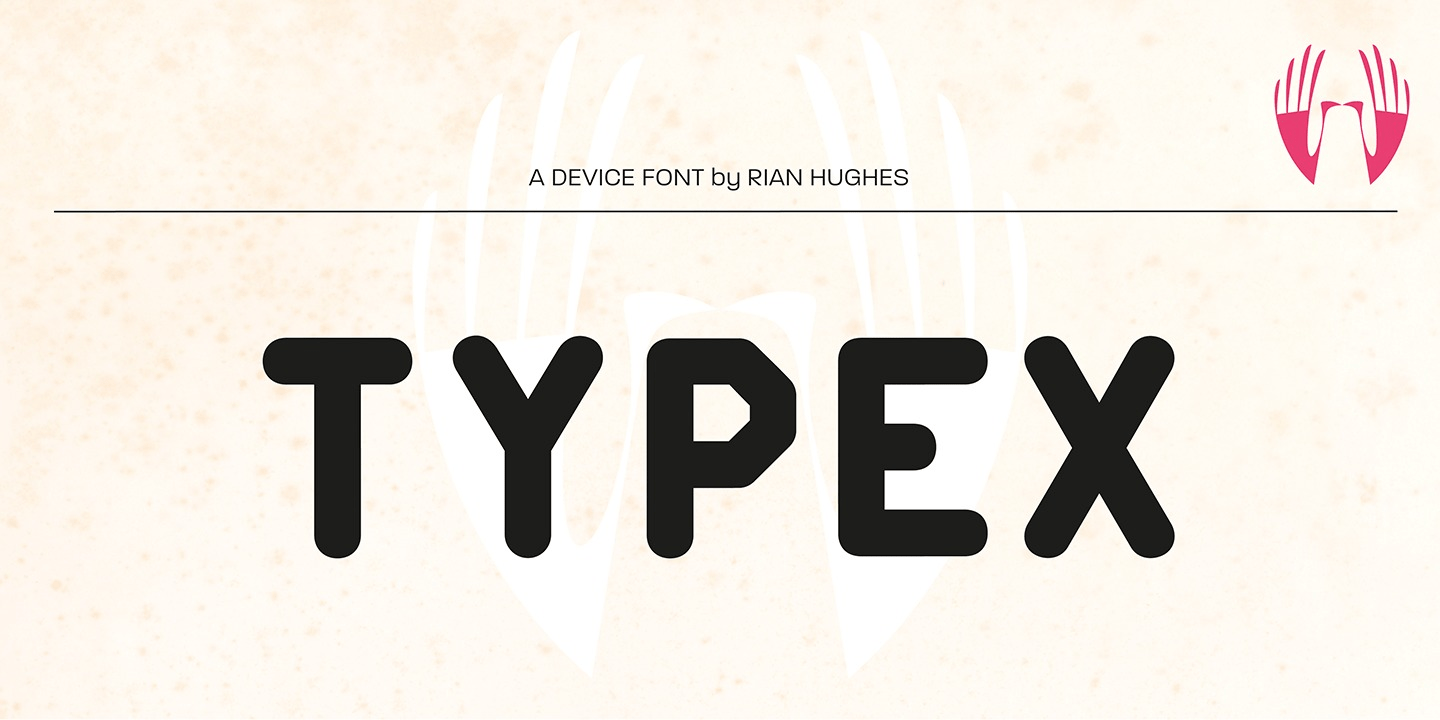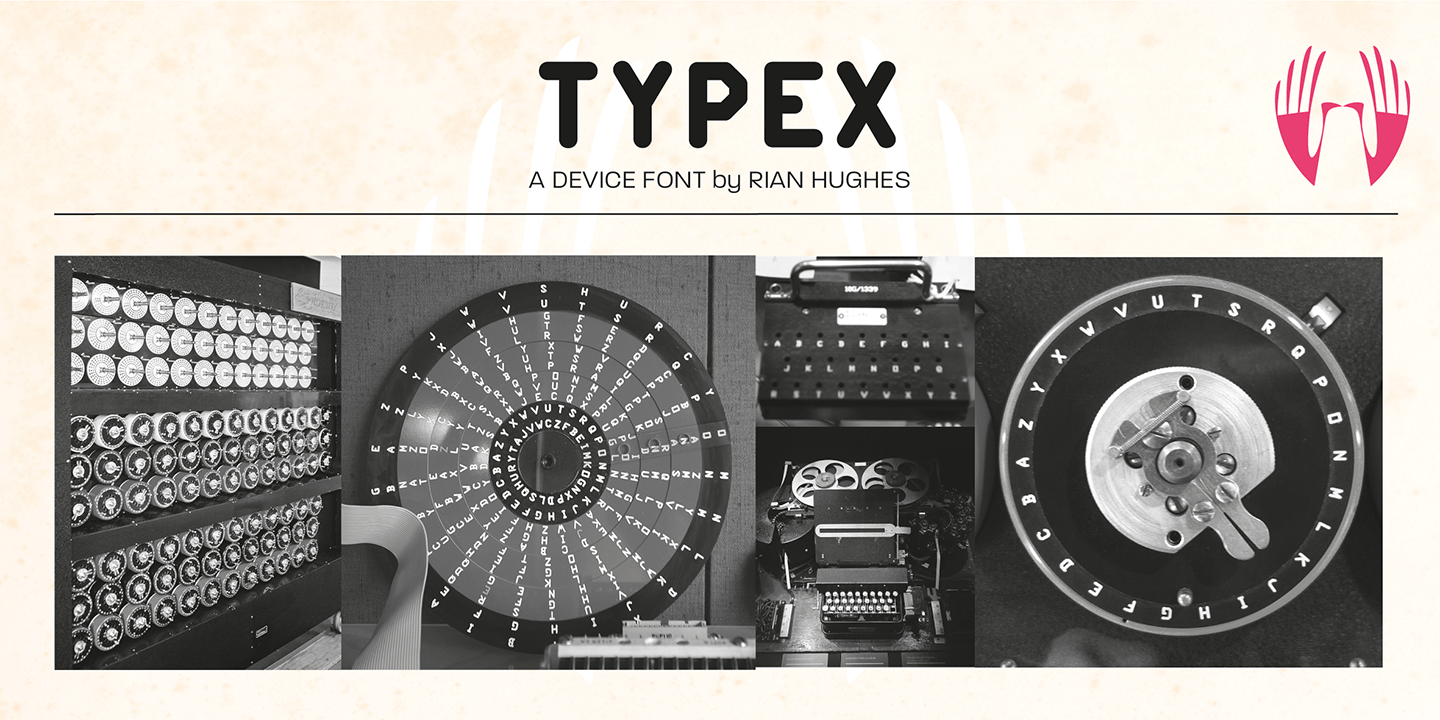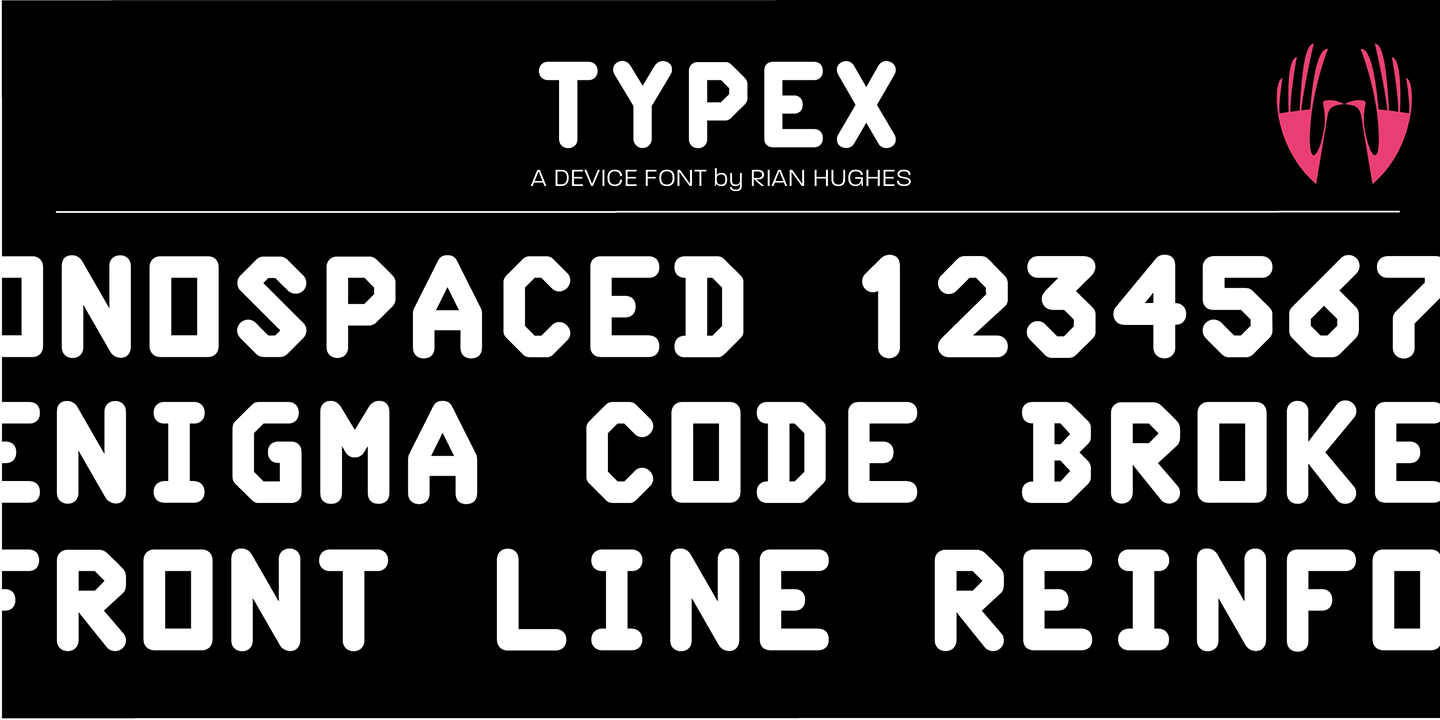
About Typex
Based on the lettering used on Alan Turing\’s famous code-breaking machine at Bletchley Park, the ?Bombe?, and the subsequent British answer to the German Enigma machine, the Typex. Research done at Bletchley Park on their restored and antique machines…